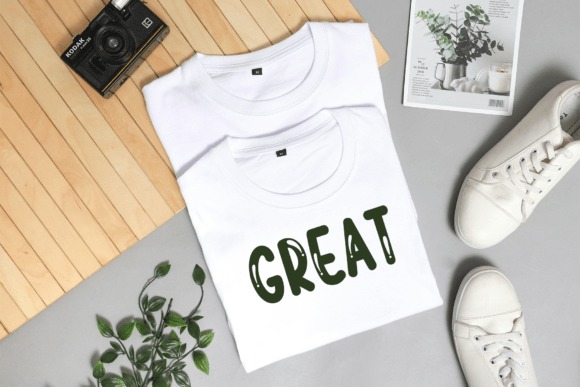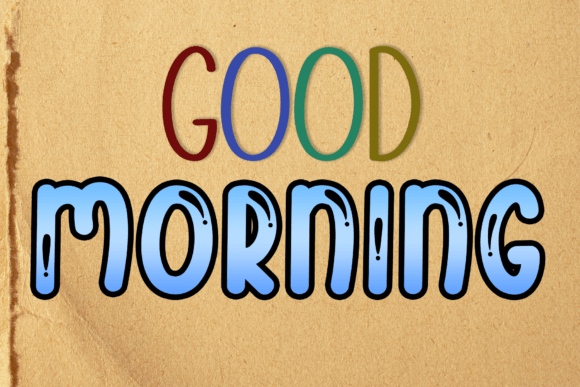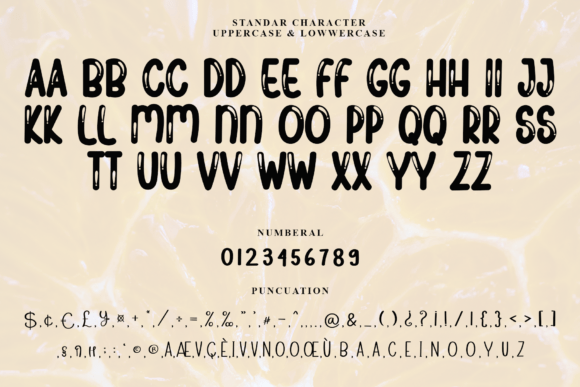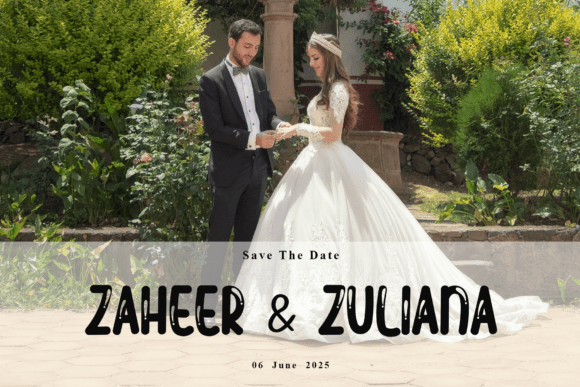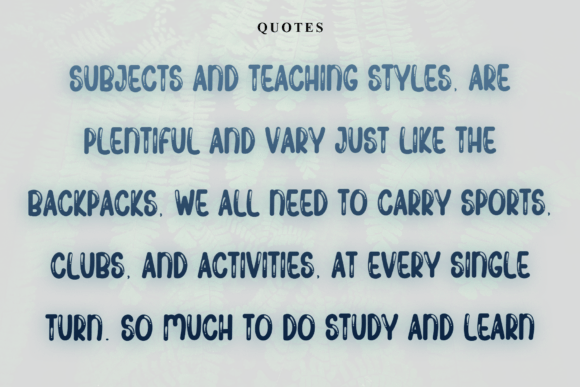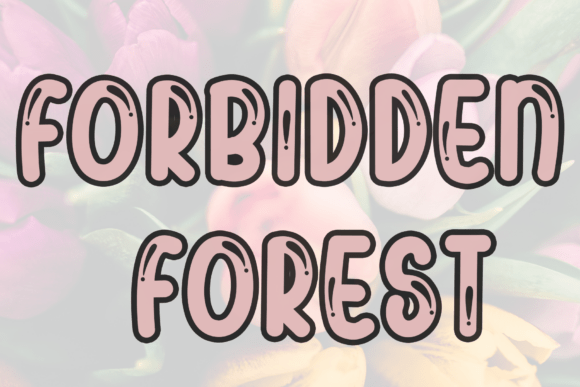
The Frame Font: A Simple yet Powerful Handwritten Font for Your Creative Projects
I’ll never forget the time I was working on a greeting card design project, and I just couldn’t seem to find the right font. My client wanted something simple, yet elegant; something that would convey a sense of warmth and personality. After hours of scouring through font libraries and trying out different combinations, I stumbled upon the Frame font. And let me tell you, it was love at first sight! 💕
The Frame font is a beautiful, simple handwritten font that has a wide spectrum of applications. From greeting cards to headlines, this versatile font is guaranteed to add a simple and natural feel to your next project. In this article, I’ll share my honest review of the Frame font, provide a practical guide on how to use it, and explore some similar fonts and alternatives.
An Honest Review of the Frame Font
- ✨ Simple and elegant design that’s perfect for a wide range of projects
- 💫 Versatile and adaptable to different design styles and themes
- 🎨 Great for both digital and print projects
While the Frame font is an excellent choice for many projects, there are a few quirks to be aware of:
- 🤔 Limited stylistic alternates, which may not offer as much flexibility for some designers
- ⚠️ Not ideal for body text or long-form content, as it may appear too ornamental
If you like the Frame font, you may also want to consider the following similar fonts or alternatives:
- Lato: A modern sans-serif font with a clean and elegant design
- Merriweather: A classic serif font with a sophisticated and elegant feel
- Pacifico: A beautiful script font with a relaxed and casual vibe
- Great Vibes: A fun and playful script font with a lively and energetic feel
The Frame font was designed with the intention of creating a simple, yet elegant handwritten font that’s perfect for a wide range of projects. The designer wanted to create a font that’s both highly legible and visually appealing, with a natural and effortless feel. The result is a font that’s perfect for designers, crafters, and creative hobbyists who want to add a personal touch to their projects.
| Font Name | Frame Font |
| Author | pinkmeca |
Q: What type of projects is the Frame font best suited for?
A: The Frame font is a versatile font that’s suitable for a wide range of projects, including greeting cards, headlines, posters, and more.
Q: Is the Frame font available in different font weights?
A: The Frame font is available in a single font weight. However, you can experiment with different font sizes and styles to achieve the desired effect.
Q: Can I use the Frame font in combination with other fonts?
A: Yes, the Frame font can be used in combination with other fonts. Experiment with different font combinations to create a unique and visually appealing design.